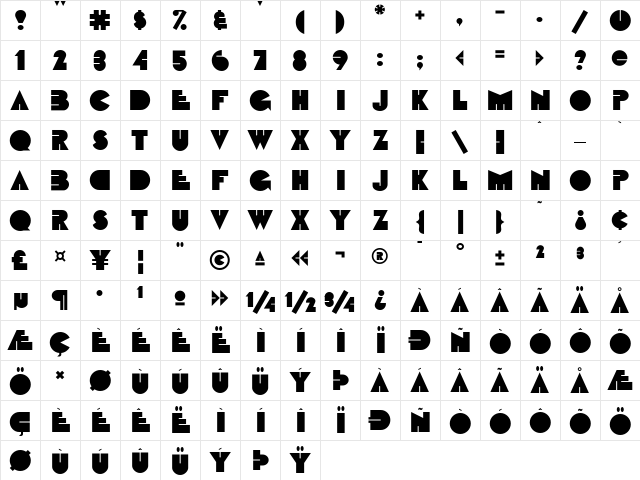
FattiPattiFLF Regular
Design Context for FattiPattiFLF Typeface
FattiPattiFLF is a composed and adaptable typeface that performs quietly and consistently across a wide range of design contexts.